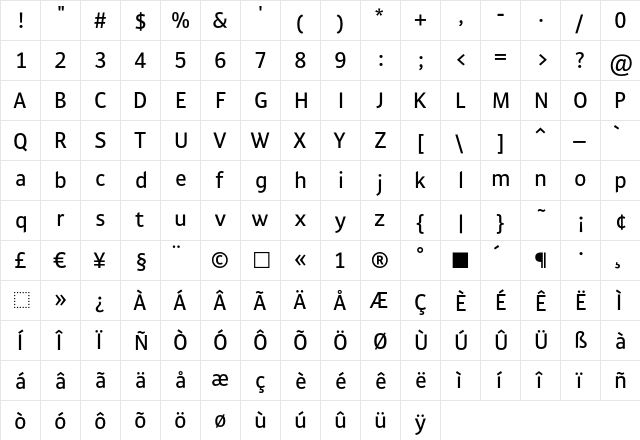
GakSans Regular
Design Context for GakSans Typeface
GakSans takes a measured approach to typography — its balanced proportions and neutral character make it a reliable workhorse for both digital and print work.